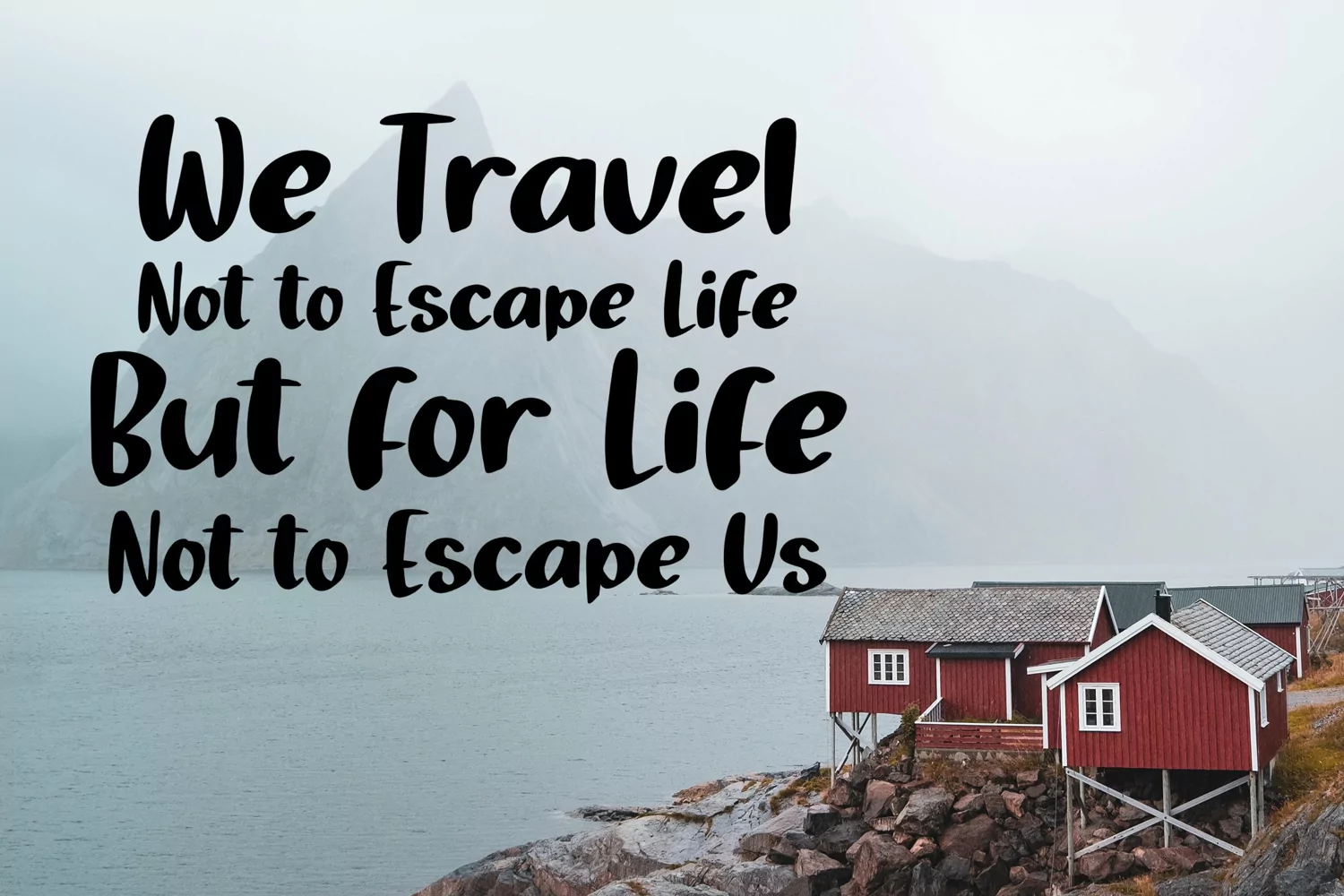
Callme Kindly - Handrawn Font that contain lowercase, uppercase, symbol, and also support multi language. There’s a lot ligatures in this font. This Font also comes with ligatures, alternates and many more. this font suitable for fashion, branding, catalog and other design what you want.